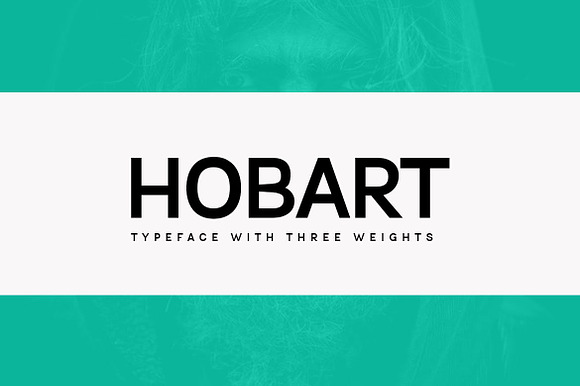
Hobart Minimal Typeface Webfonts.
Hobart Sans is a modern and Minimal Sans Serif typeface With Different weights, Hobart can keep the minimalism at its level best. The concept of Hobart Sans is based on Classic minimal typeface which was released in the 20th Century, but we have added Modern Styles and concentration to the Design.
- Hobart Sans Regular
- Hobart Sans oblique
- Hobart Sans Bold
Hobart Minimal Typeface Webfonts. by Webhance Studio fits naturally into Branding, posters, packaging, typography.